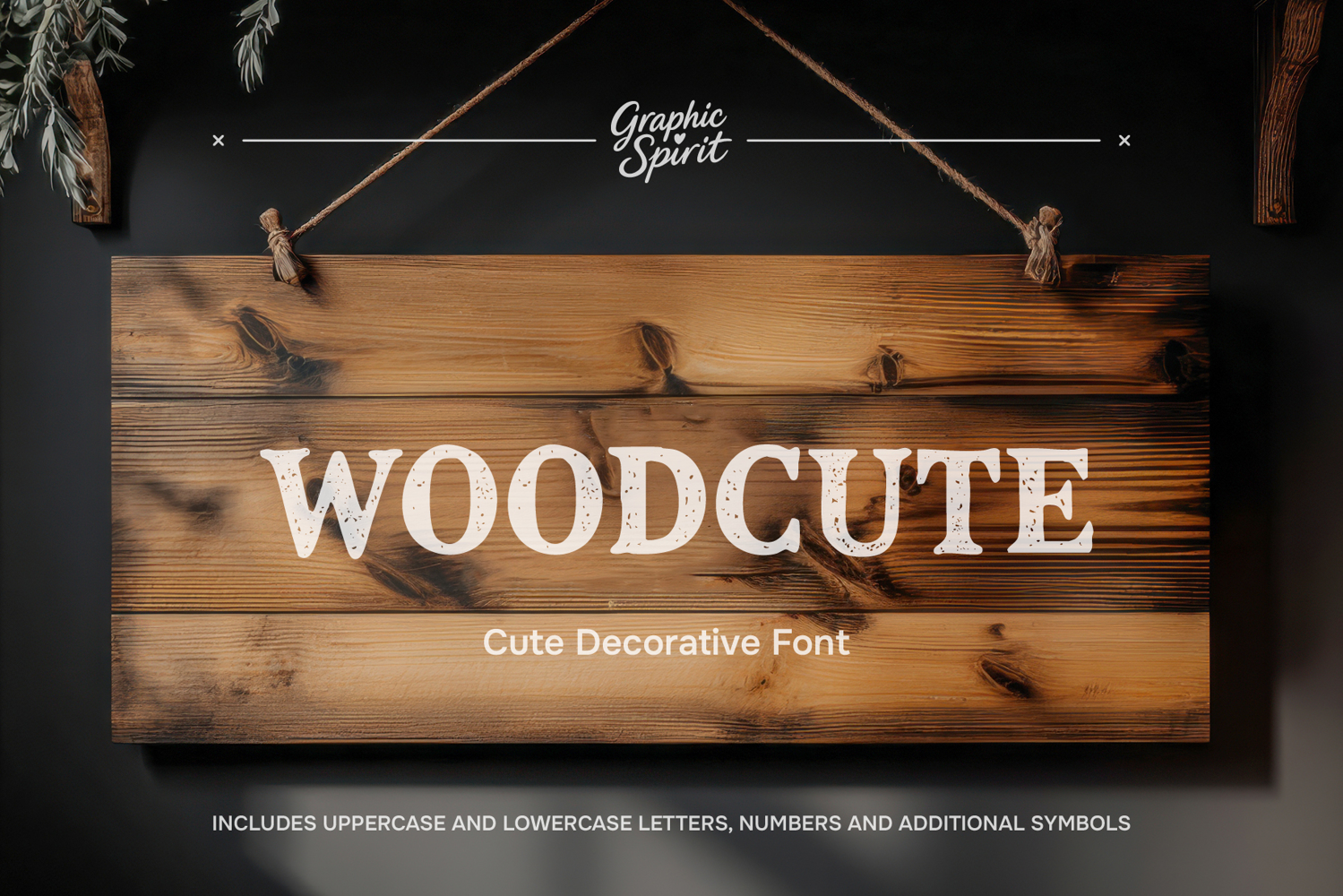
Woodcute Cute Decorative Font
🌲 Welcome to Woodcute, the charming decorative font that brings a touch of the forest to your designs! This versatile digital download is perfect for creating eye-catching logos, heartwarming wedding stationery, playful nursery art, and cozy branding projects. Instantly elevate your DIY crafts with its adorable, hand-drawn aesthetic.